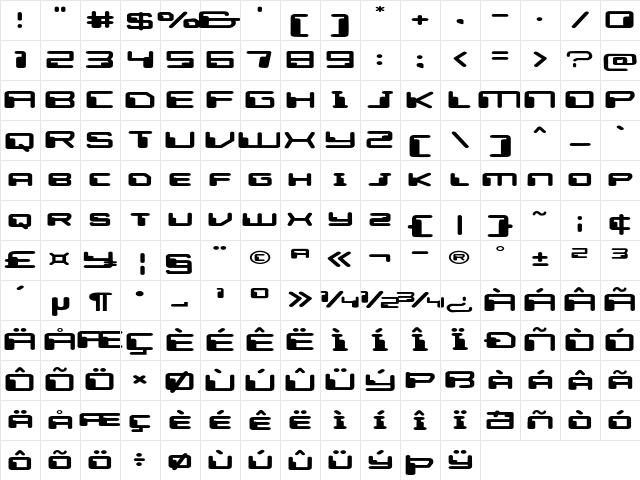
Digital End Extra-expanded Regular
Style: Extra-expanded Regular
Digital End Family
Design Context for Digital End
Digital End has a distinctly futuristic character, with geometric precision and clean angles that feel at home in technology, gaming, and sci-fi contexts.